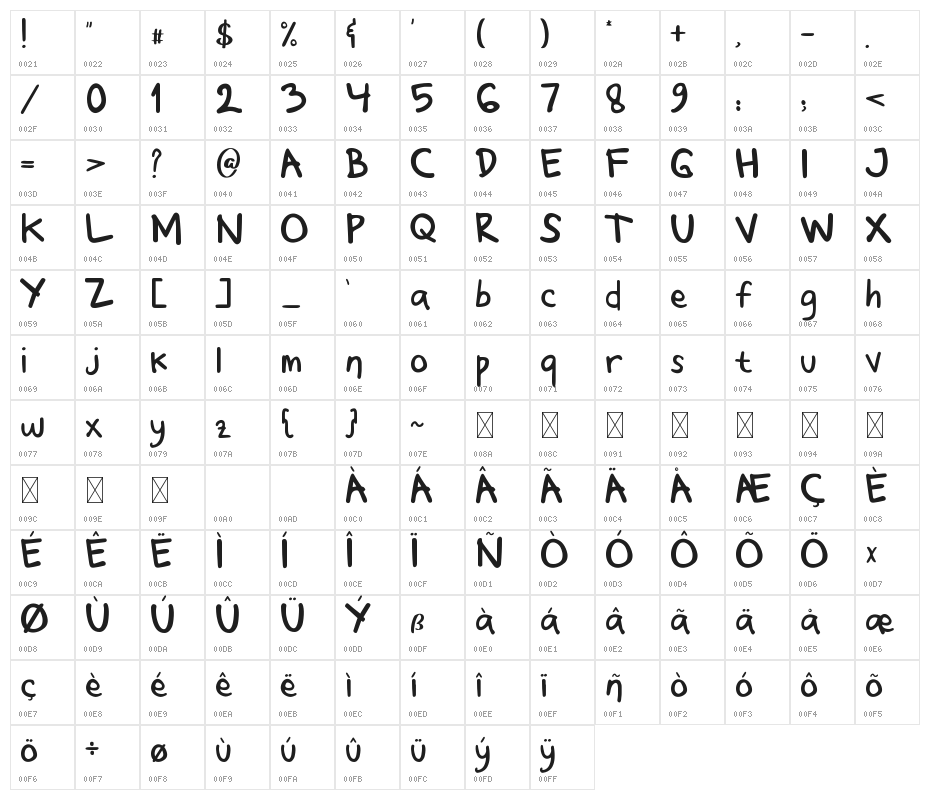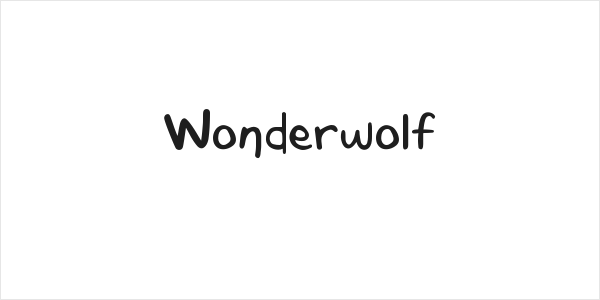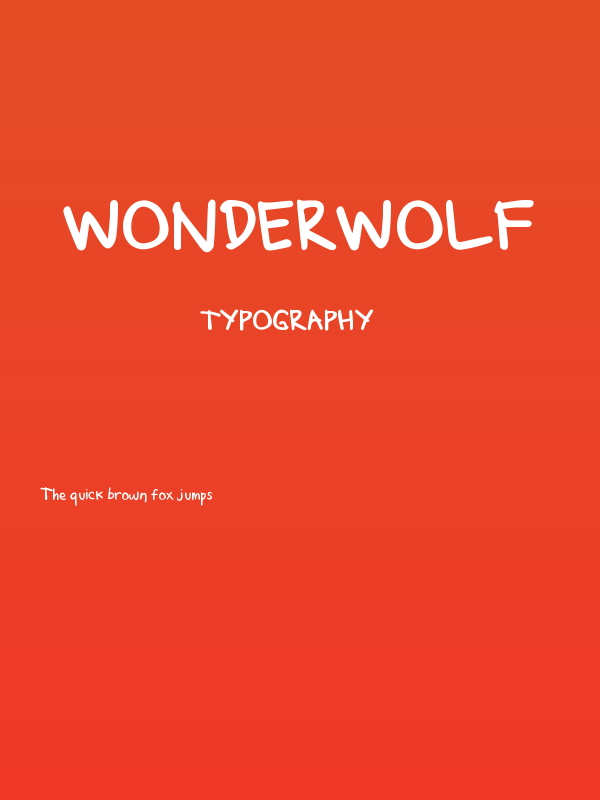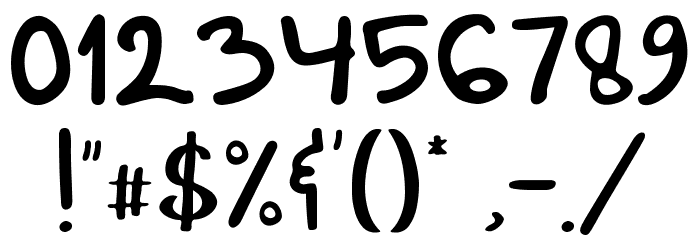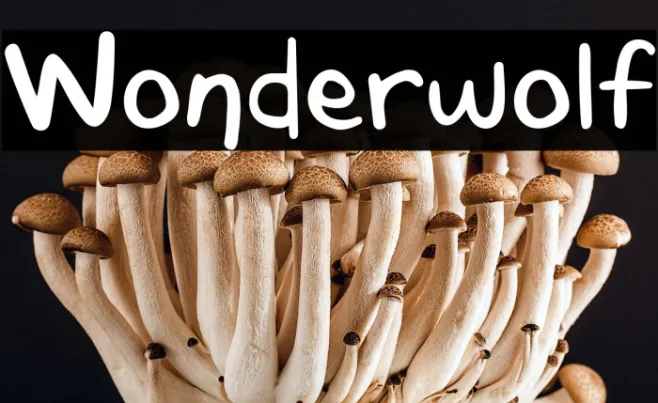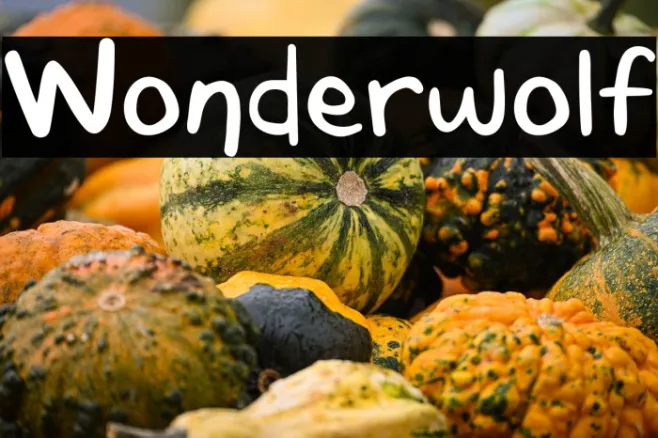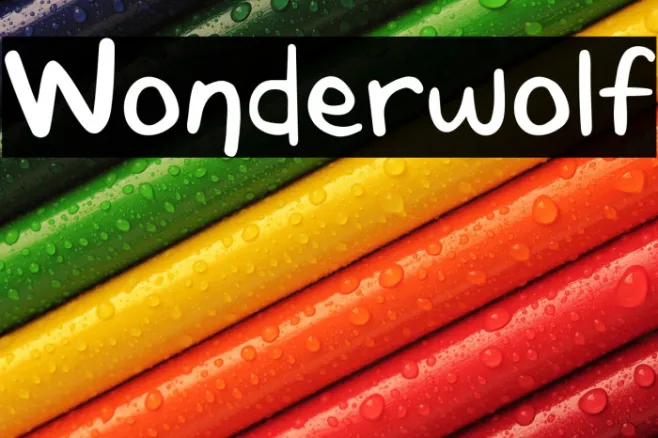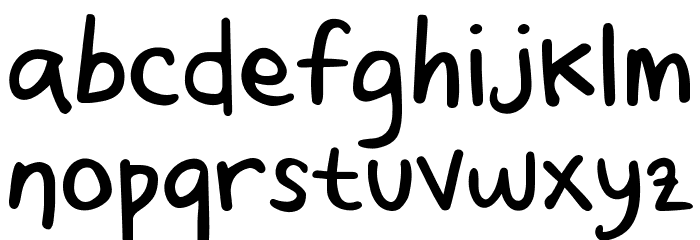
Wonderwolf Font
Wonderwolf Description
This playful and whimsical font features a handwritten style with a casual and friendly appearance. The characters are rounded and slightly irregular, giving it a personal touch that mimics natural handwriting. The uppercase and lowercase letters maintain a consistent flow, while the numerals and special characters complement the overall style. The font's informal nature makes it suitable for projects that require a touch of personality and creativity. Its legibility is maintained despite the playful design, making it versatile for various applications.
| Proposed Projects | Ideal for children's books, greeting cards, informal invitations, and playful branding. |